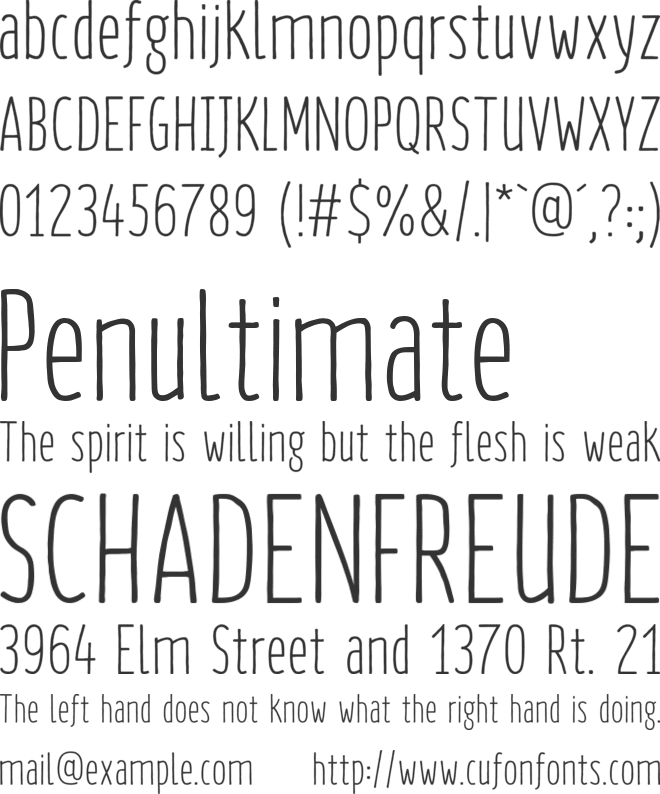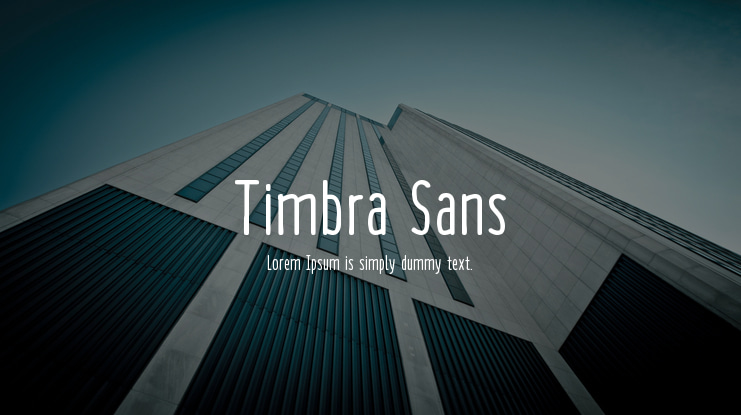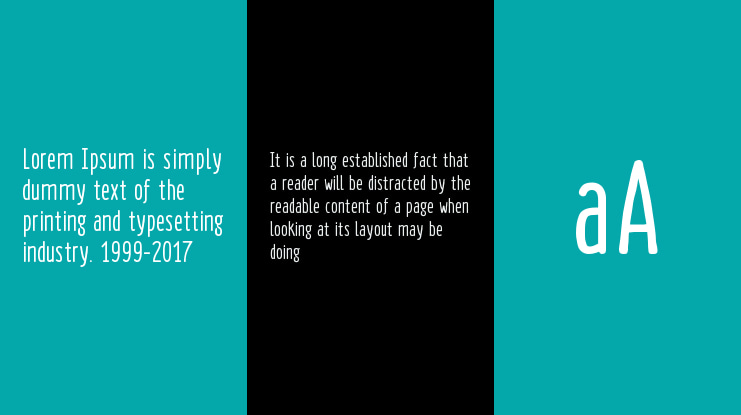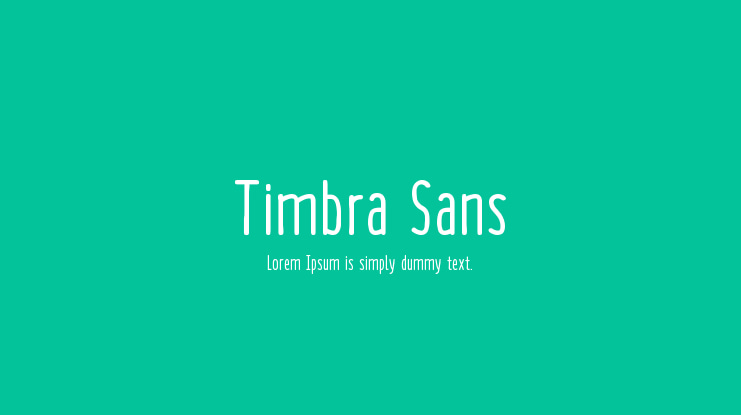
Timbra Sans Font Family
Christian Schaarschmidt
Timbra Sans is a handmade tight-fitting sans serif in two thicknesses. It includes 387 glyphs and supports Basic Latin, Latin-1 Supplement and Latin-Extended A. In addition, the fonts come with ligatures and open-type breaks. Timbra Sans is free to use for private and commercial purposes. Have fun!
Timbra Sans is a handmade condensed sans-serif coming in two weights. The Fonts include 387 glyphs and support Basic Latin, Latin-1 Supplement and Latin-Extended A. In addition to that there are ligatures as well as open-type fractions. Timbra Sans is free to use for personal and commercial work. Have fun!